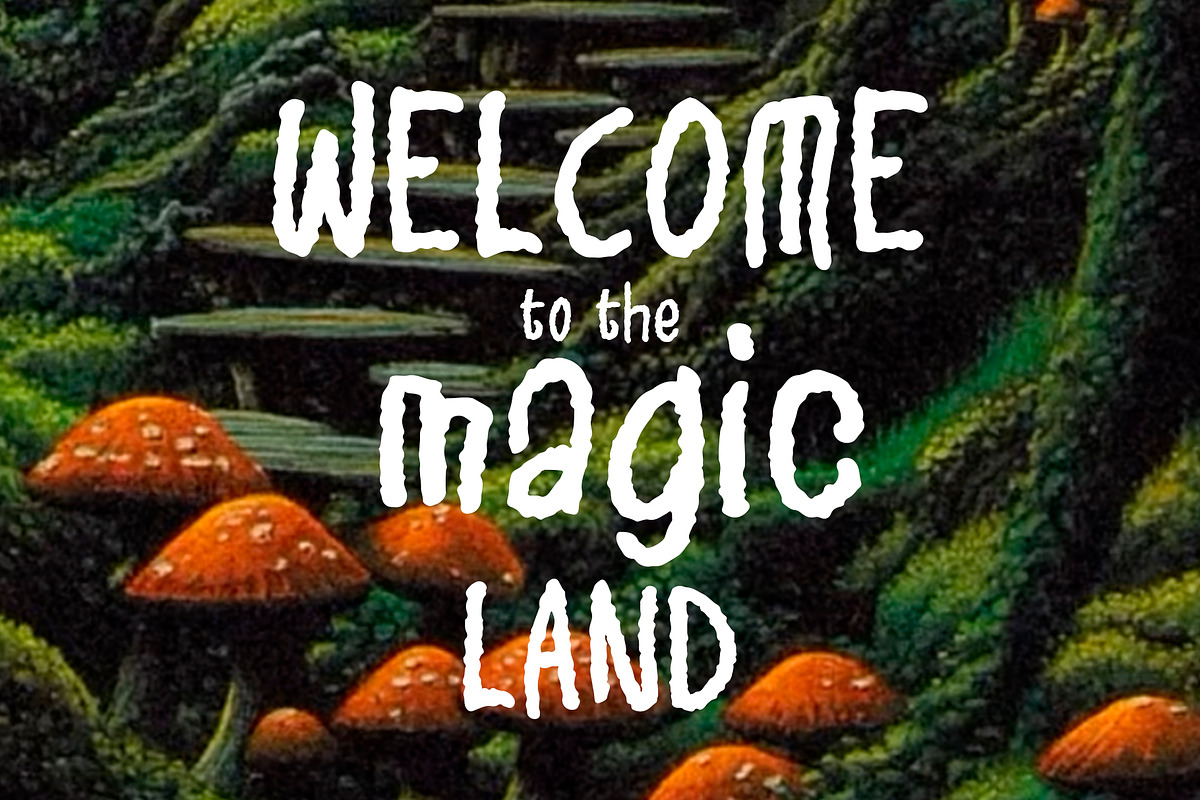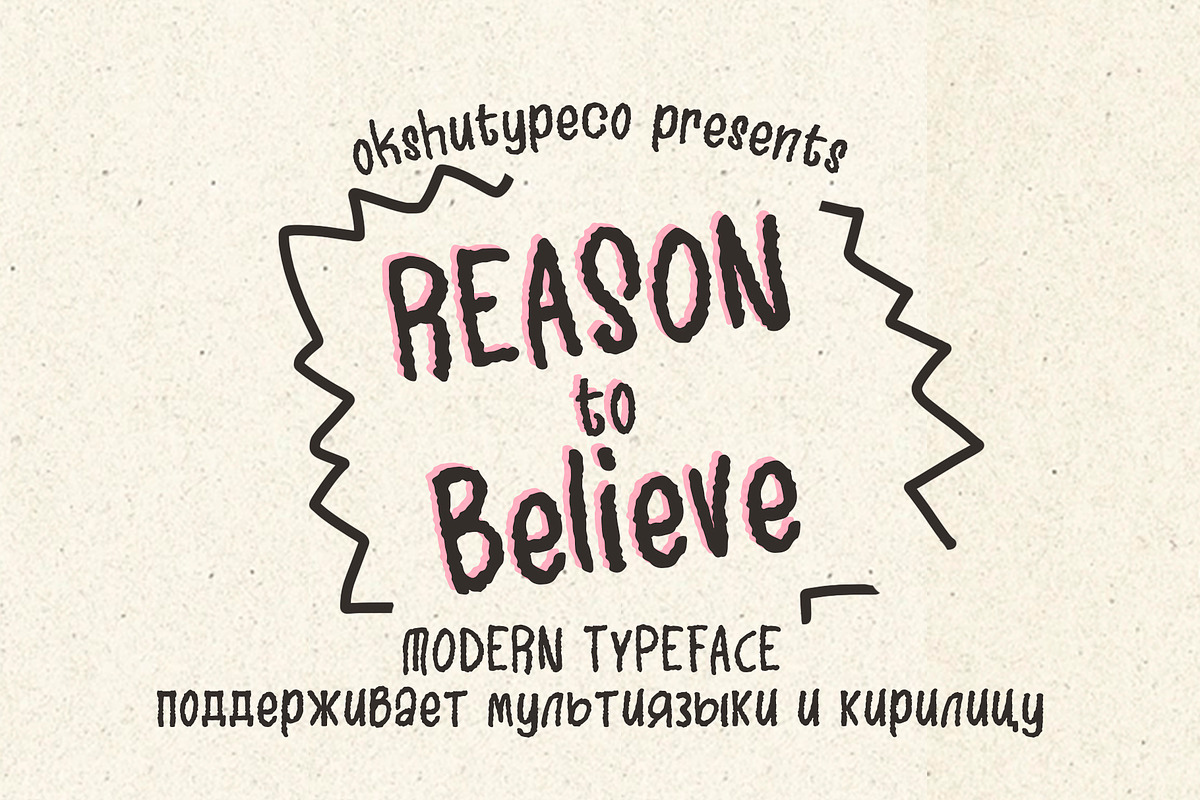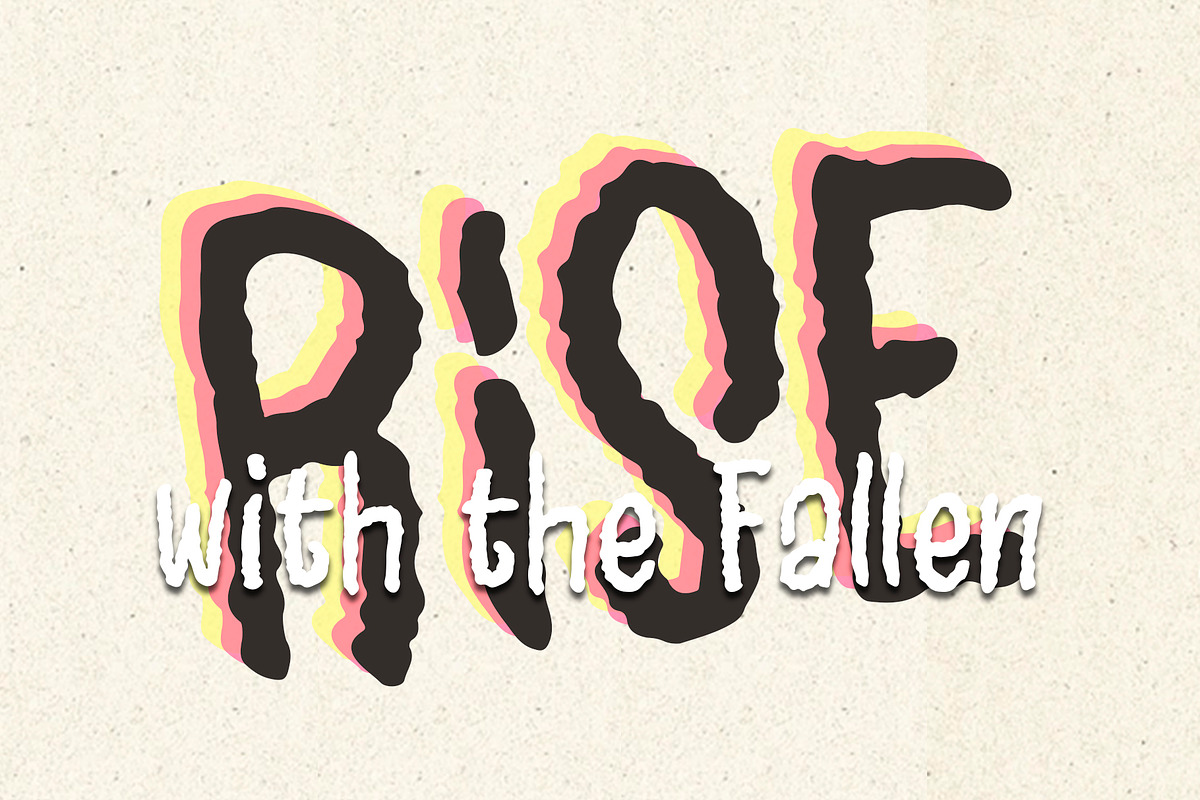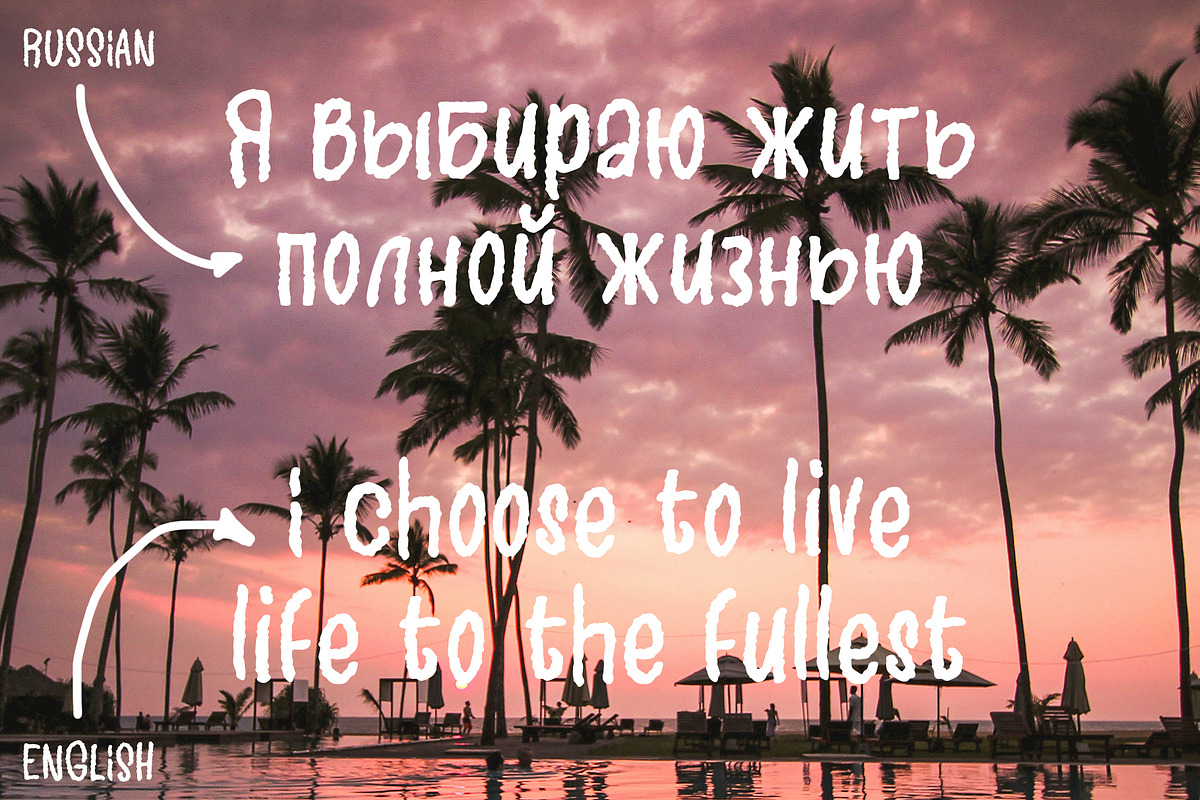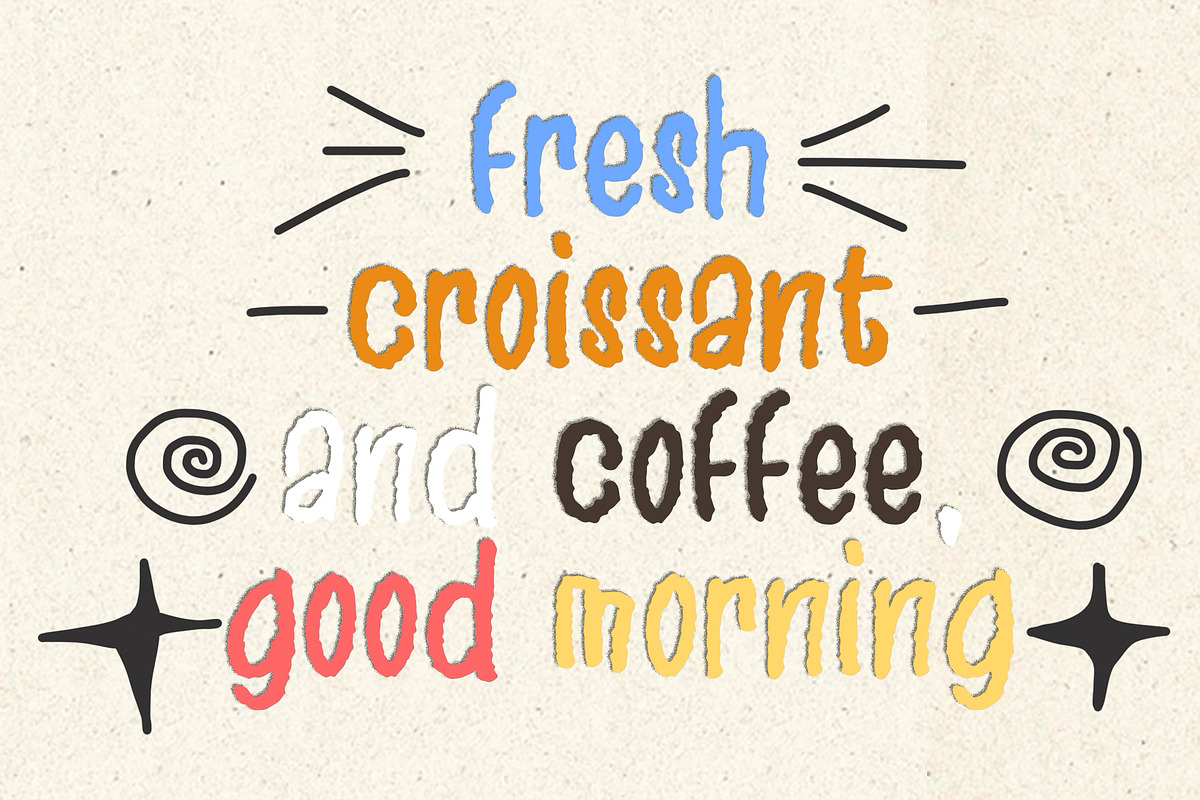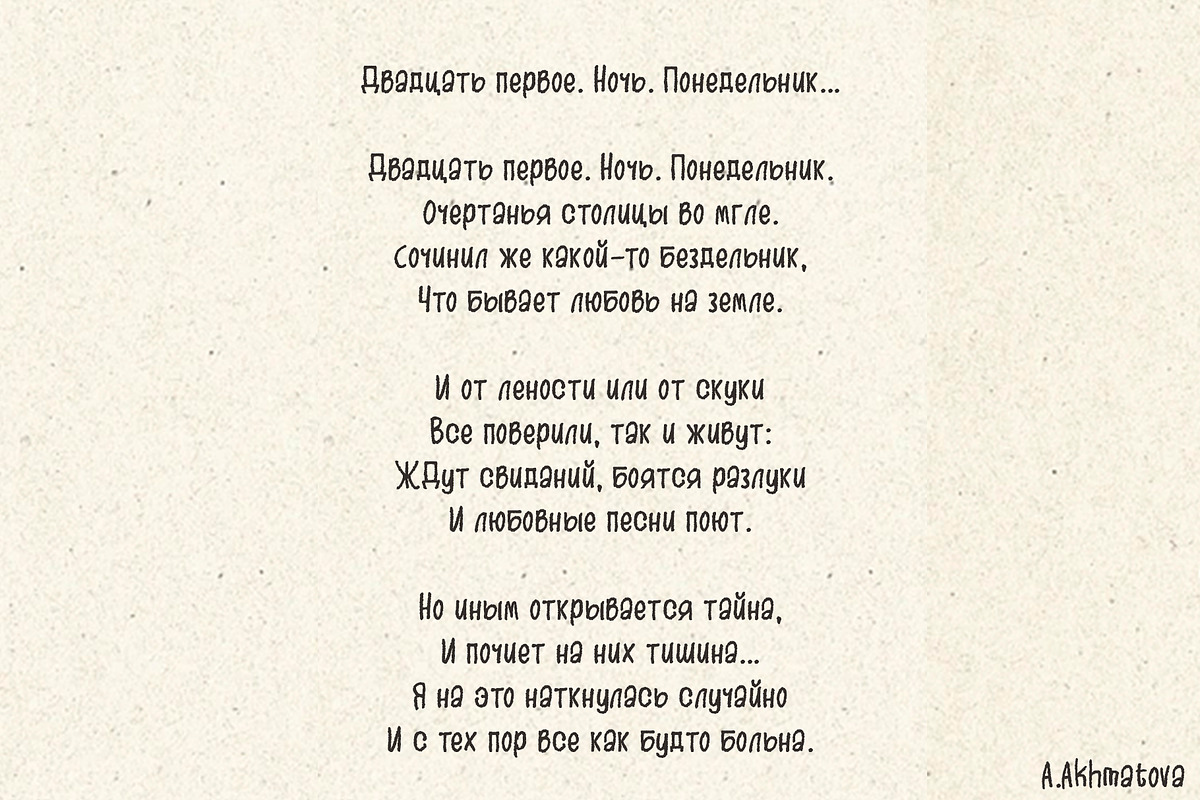
Reason to Believe
Reason to Believe - a new fresh handmade calligraphy font.
UpperCase & Lowercase
Numerals & Punctuations
Multilingualcharacters(AÀÁÂÃÄÅCÇDÐEÈÉÊËIÌÍÎÏNÑOØÒÓÔÕÖUÙÜÚÛWYÝŸŸ - ÆŒßÞàáâãäåæçèéêëìíîïðñòóôõöøùúûüýÿ)
Cirillic OK ( Russian, Ukraine, Belarus)